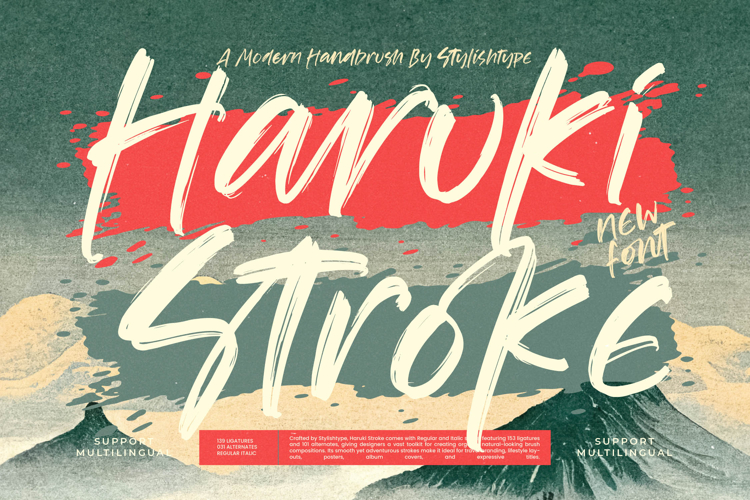
Haruki Stroke - Modern Handbrush Font
Unleash a torrent of raw, unbridled energy with Haruki Stroke. This isn't just a font; it's a statement, a burst of creative force captured in every character. Each stroke is carved with an authentic dry-brush texture, creating a dynamic, forward-moving script that feels both raw and refined. Haruki Stroke embodies a rebellious spirit with an artistic soul, designed to give your projects a powerful and unforgettable voice that screams with confidence.